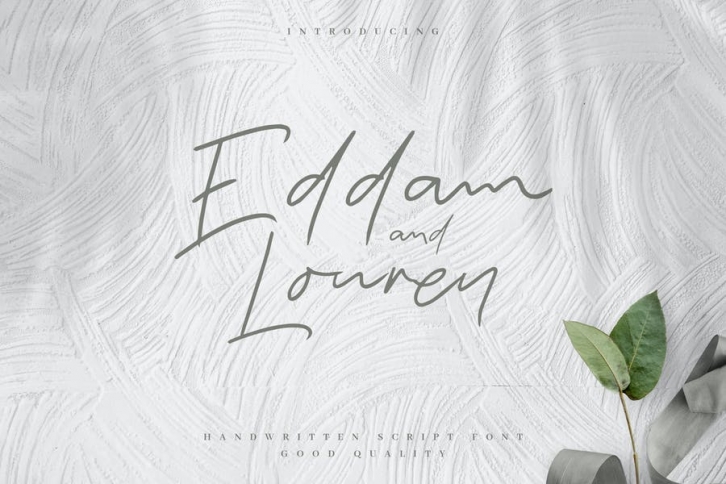
Are you looking for an elegant signature font? We can help! Try to download our Eddam and Louren Signature font. The font is suitable to use for all all purpose. Try to use it on Wedding invitation, greeting card, poster, quotes, postcard, photography, branding, editorial, and signature to see the best of it :)
- Basic Latin A-Z and a-z
- Ligature and Alternate
- Multilangual Support